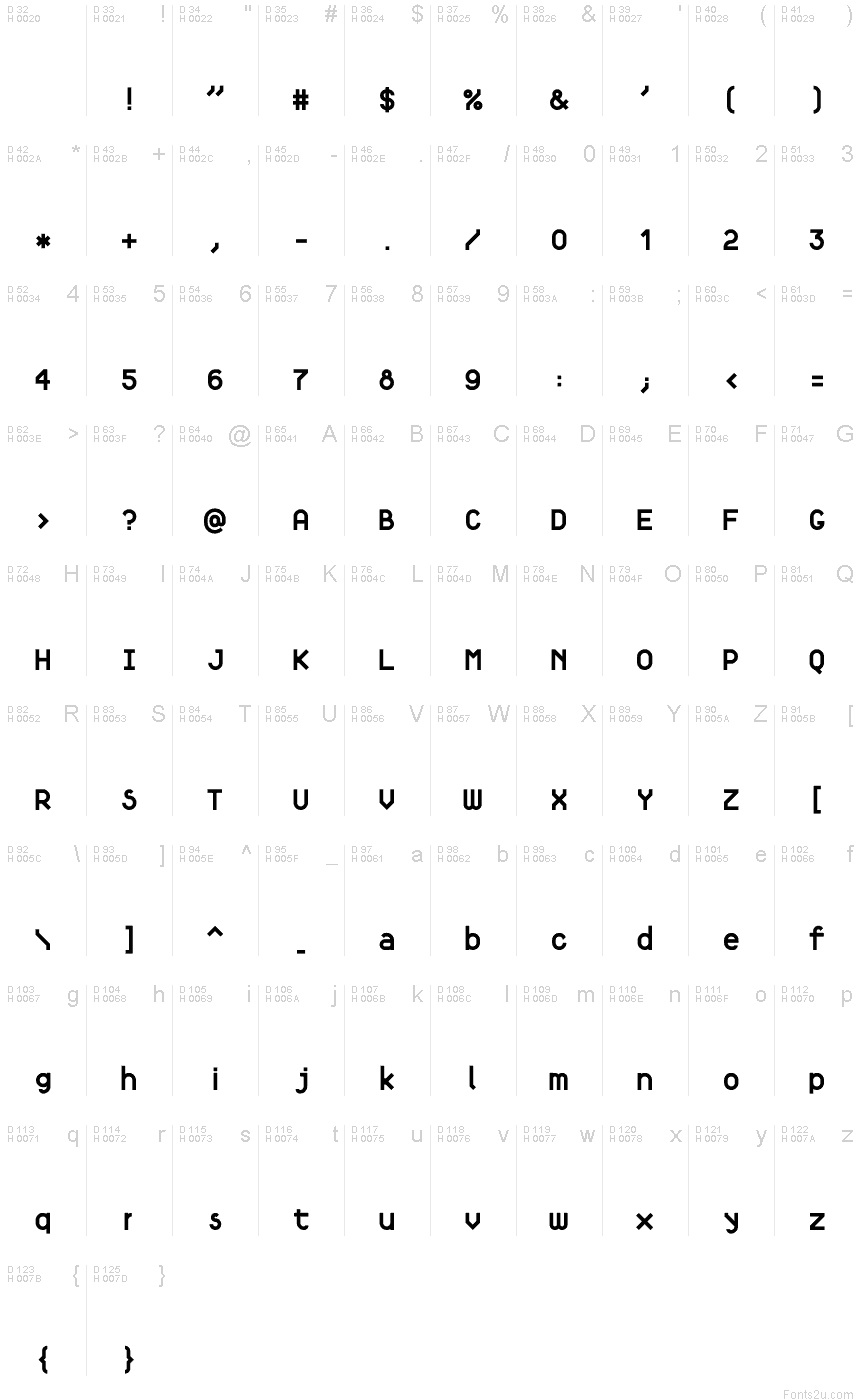
Fortyfive: Praise to simple geometry
"Praise to Geometry". Based on the idea of 45x degree angle lines and circular shapes. Kerning may be incomplete, your comments will be very welcome.